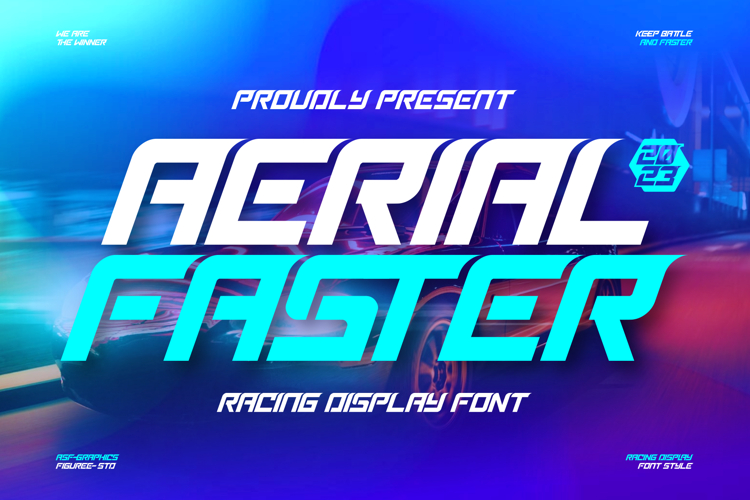
Its extended proportions, sharp angles, and aerodynamic shapes make Aerial Faster stand out in bold compositions. Whether you’re working on dynamic branding, digital campaigns, or modern sports design, this font ensures your message crosses the finish line in style.